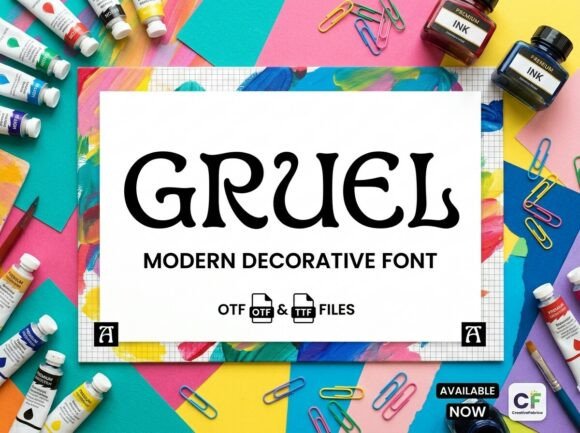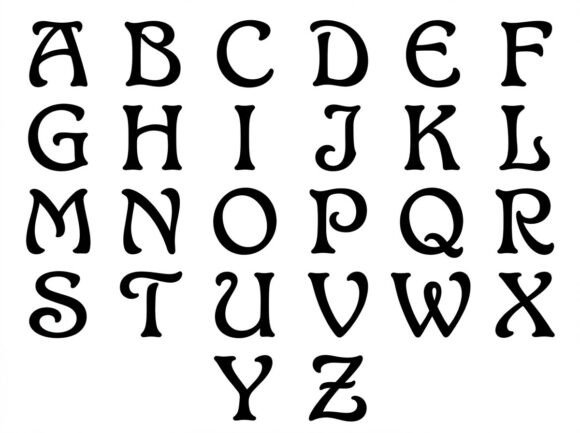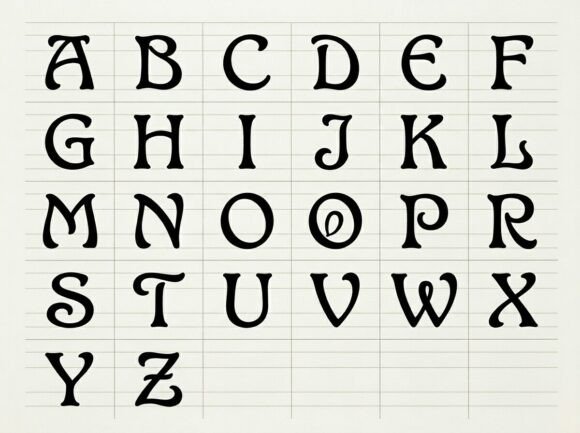
Introducing Gruel Font: A Stunning Decorative Display Font
Are you tired of using the same old fonts for your designs? Look no further! Gruel Font is a unique and artistic display font that is sure to grab attention. With its strong visual personality and decorative elements, this font is perfect for creators who want to make a statement. In this article, we’ll dive into the features and benefits of Gruel Font, and explore how it can elevate your designs.
Gruel Font is a decorative display font designed to be the center of attention. Its unique artistic elements and strong visual personality make it perfect for bold headlines, artistic logos, and creative packaging. Whether you’re a designer, crafty DIY enthusiast, or entrepreneur, this font is sure to help you stand out from the crowd.
Before you purchase, please note that Gruel Font is an ALL-CAPS (Uppercase Only) display typeface. This means it does not include lowercase letters. It’s specifically designed for high-impact headlines, logos, and decorative initials where every letter is a work of art.
Gruel Font is versatile enough for a variety of design projects, including:
- Bold Headlines: Use Gruel Font to create eye-catching headlines for your blog posts, articles, or social media graphics.
- Artistic Logos: Create a unique and memorable logo for your business or brand with Gruel Font.
- Creative Packaging: Use Gruel Font to add a touch of elegance and sophistication to your product packaging.
Why Choose Gruel Font?
Here are just a few reasons why Gruel Font stands out from the rest:
- Unique and Artistic: Gruel Font features unique artistic elements that will set your designs apart from the ordinary.
- Professional and Polished: Despite its decorative nature, Gruel Font maintains a professional and polished finish, making it perfect for business and personal projects.
Tips for Using Gruel Font
Here are a few tips for getting the most out of Gruel Font:
- Experiment with Colors: Gruel Font looks great in bold, bright colors. Experiment with different color combinations to find the perfect look for your design.
- Play with Size: Gruel Font is designed to make a statement, so don’t be afraid to go big! Use it in large sizes to create a bold and eye-catching design.
- Mix and Match: Try pairing Gruel Font with other fonts to create a unique and interesting design.
Gruel Font is a stunning decorative display font that is sure to elevate your designs. With its unique artistic elements, strong visual personality, and versatility, it’s perfect for designers, crafters, and entrepreneurs who want to make a statement. Whether you’re looking for a bold headline font, an artistic logo font, or a creative packaging font, Gruel Font is the perfect choice.